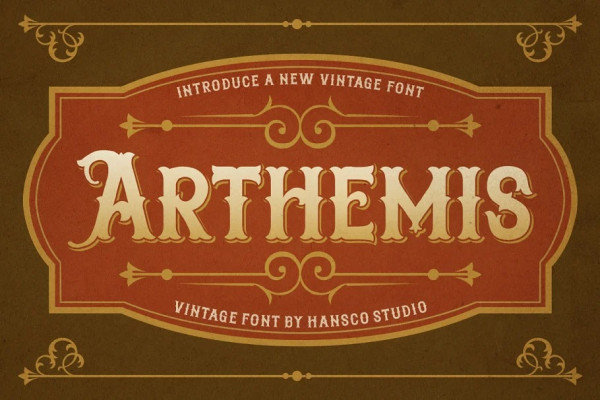
Arthemis Vintage Font
Arthemis Vintage Font is a Vintage typeface font, it will add an old-time charm to any design project. Don’t miss the opportunity to infuse your designs with the elegance and nostalgia of vintage typography. Our vintage font is the perfect companion for your creative journey.
With its multiple formats, alternative characters, and ornamental elements, it’s never been easier to bring the timeless charm of the past into your modern projects. This collection of font is perfect for everything your project with vintage, retro, wild or organic style. It was made with the intention of being used for product Logo like a Pomade, Coffee, Barber shop or packaging label. It’s great also for Branding, Logo designs, Lettering, Logotype, Craft, Posters and much more.